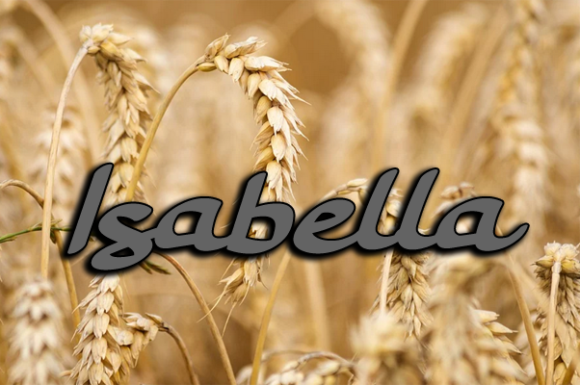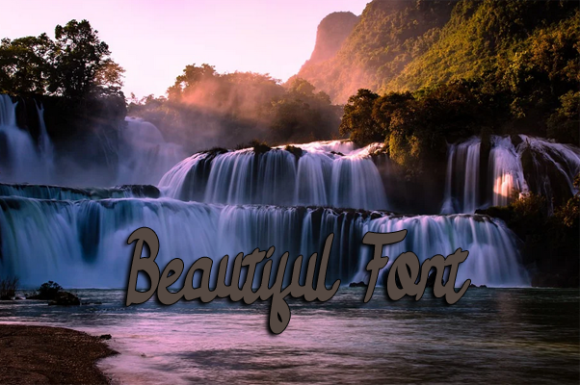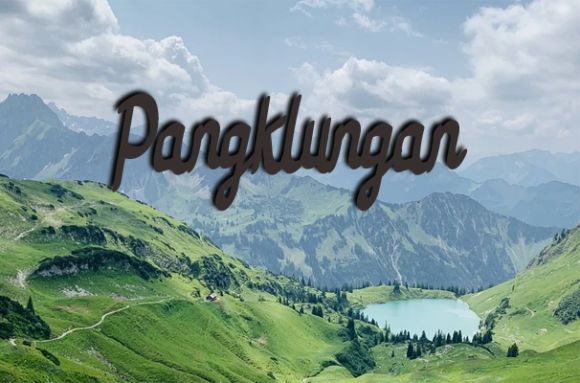
The Adventure Font: Elevate Your Designs with Elegance
Have you ever been in the middle of a design project, and suddenly, you’re stuck on finding the perfect font? I recall a particularly frustrating experience while working on a wedding invitation design. My client wanted something elegant, yet adventurous. That’s when I stumbled upon the Adventure font, and it completely transformed my design. In this article, I’ll share my experience with this stunning script font, its features, and how to make the most of it in various design platforms.
A Personal Review of Adventure Font
• ✨ Elegant and stylish: Adventure font is perfect for designs that require a touch of sophistication and glamour.
• ✅ Versatile: It works beautifully on wedding invitations, thank you cards, quotes, greeting cards, logos, business cards, and more.
• 💫 Unique character: Each letter is carefully crafted to provide a distinctive and luxurious feel to your designs.
While Adventure font is an excellent choice for many designs, there are a few things to keep in mind:
• ⚠️ Legibility at small sizes: Like many script fonts, Adventure can be challenging to read at very small sizes. It’s best used at larger sizes or for headlines.
• 🤔 Pairing with other fonts: Due to its distinctive style, it may require some experimentation to find the perfect pairing font that complements it without overpowering it.
The Backstory of Adventure Font
Adventure font was crafted with the intention of bringing a sense of luxury and adventure to the world of typography. Its designer aimed to create a font that could evoke the elegance of a bygone era while still feeling modern and versatile. The result is a font that can add a touch of sophistication to any design project.
Font Name Adventure Font
Author AA studio
What makes Adventure font unique? Its elegant and stylish appearance, making it perfect for designs requiring a touch of sophistication.
Is Adventure font suitable for body text? Due to its script nature, it’s best used for headlines or short paragraphs. For longer body text, a more readable font is recommended.
In conclusion, Adventure font is a versatile and elegant script font that can elevate your designs with its luxurious feel. Whether you’re working on wedding invitations, logos, or greeting cards, this font is sure to add a touch of sophistication. With its OpenType features, glyphs, and stylistic alternates, Adventure font offers endless possibilities for creative expression.